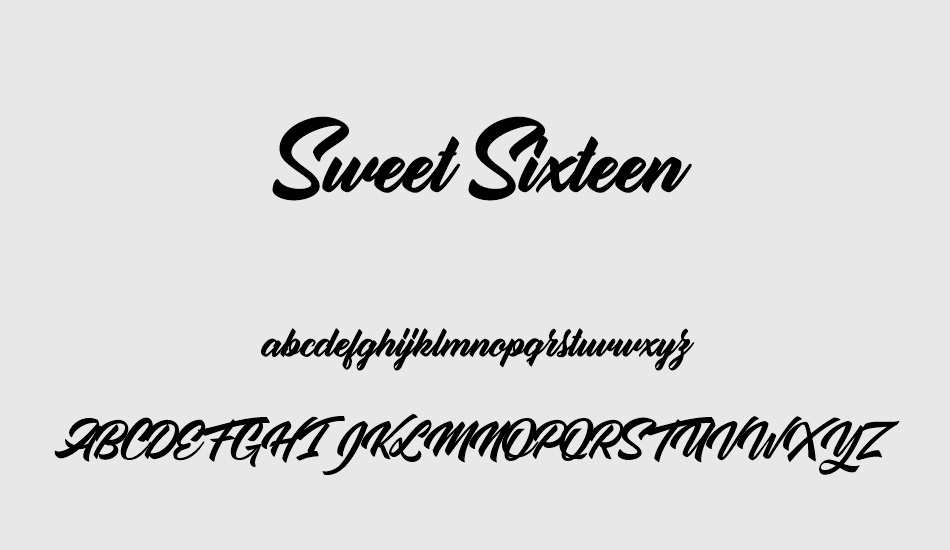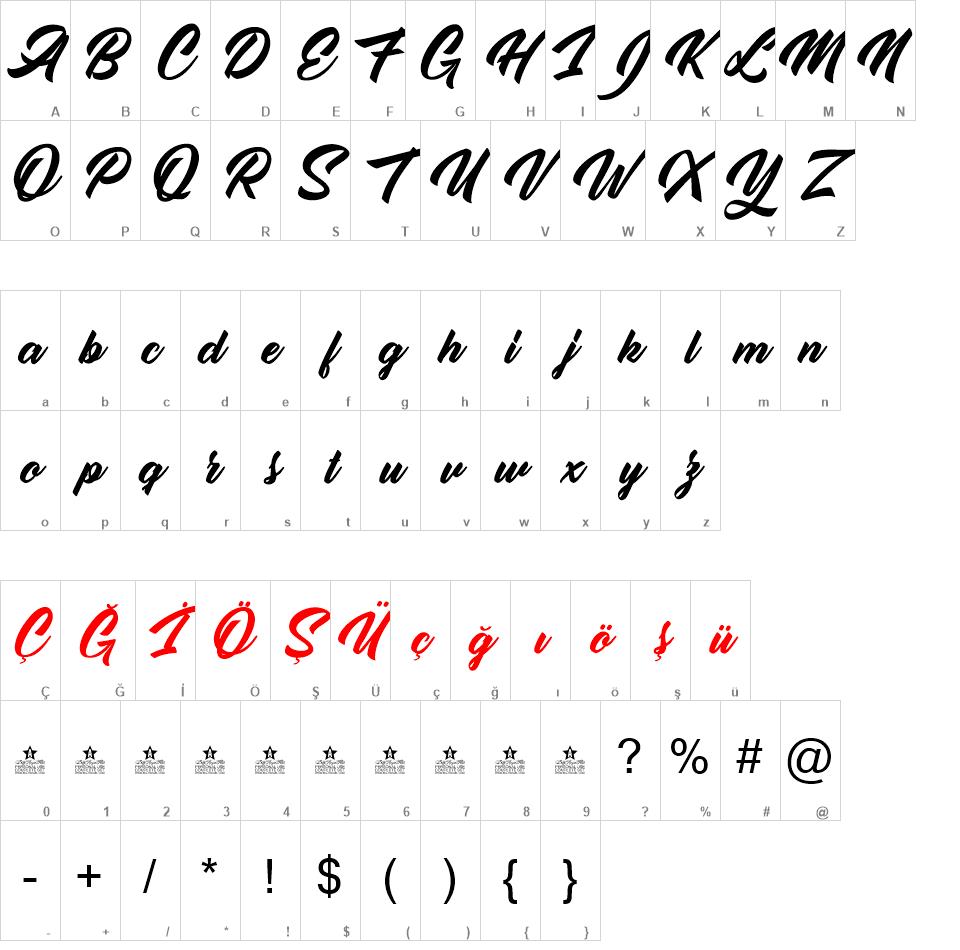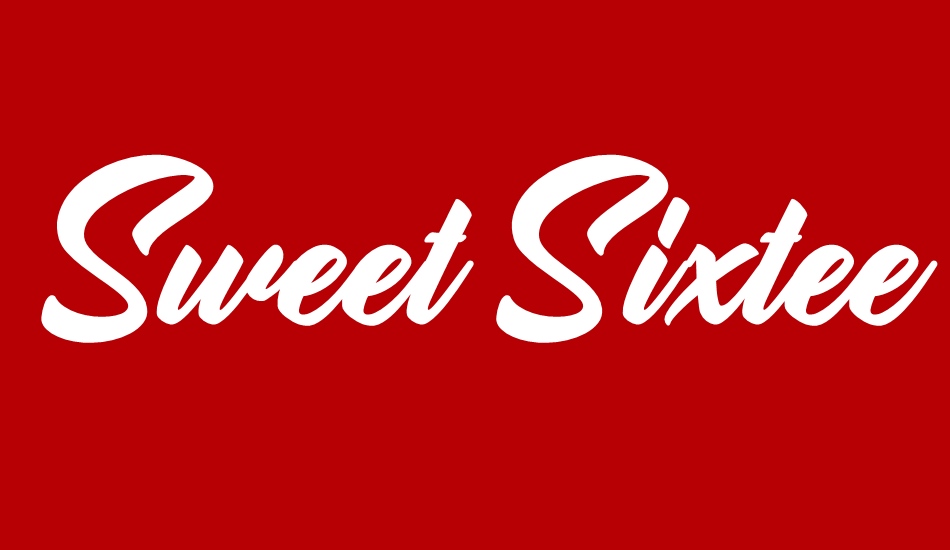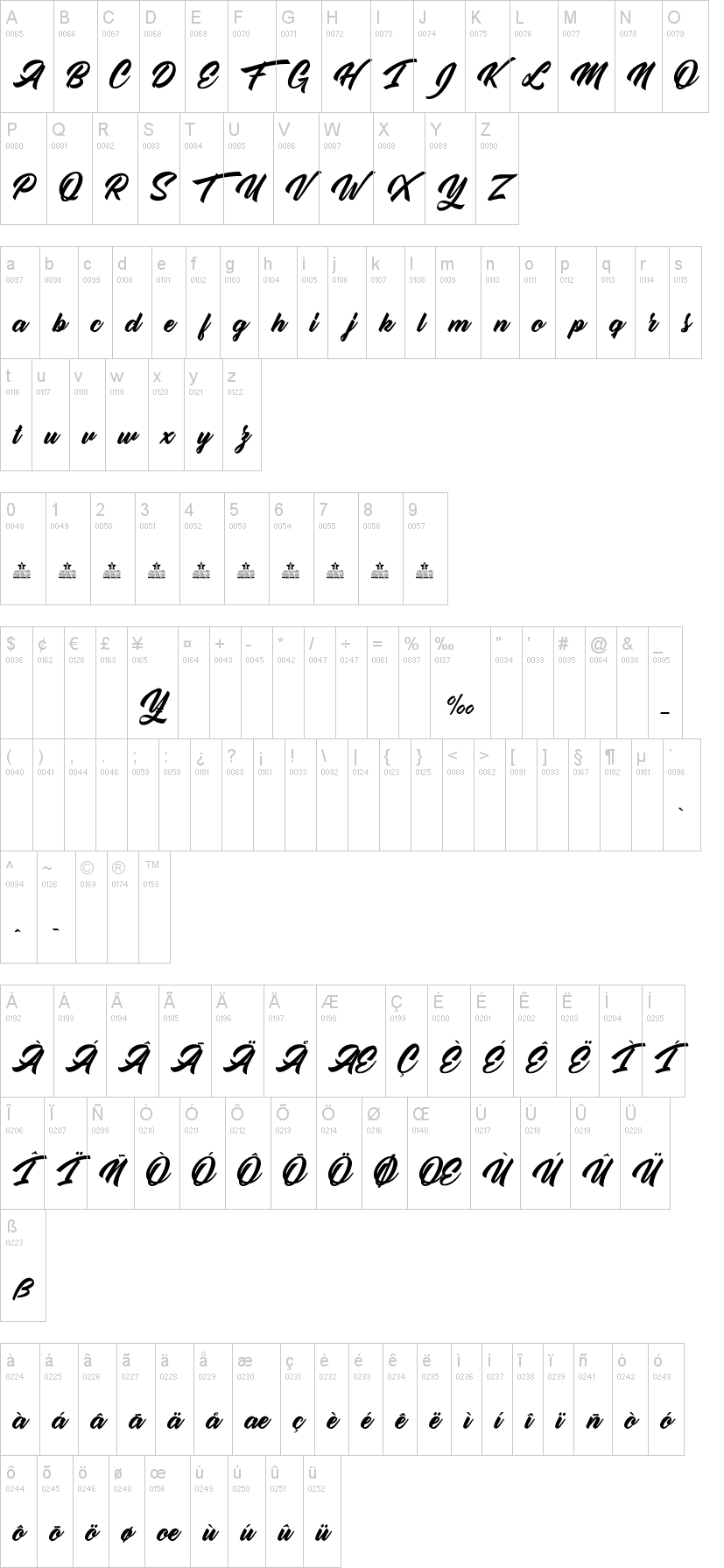
Sweet Sixteen Font
Sweet Sixteen Font - Jul 30, 2021 822 14. Web sweet sixteen is a high quality brush font that is designed by billy argel and is available for free download and personal. Sweet sixteen is a script type font that can be used on any. Mar 11, 2022 487 11. Web sweet sixteen is a free font for personal use created by billy argel. Web sweet 16 fonts. Web stylish calligraphy by misti's fonts. Collection of fonts for sweet sixteen.
Web sweet 16 fonts. Sweet sixteen is a script type font that can be used on any. Web stylish calligraphy by misti's fonts. Web sweet sixteen is a free font for personal use created by billy argel. Web sweet sixteen is a high quality brush font that is designed by billy argel and is available for free download and personal. Mar 11, 2022 487 11. Jul 30, 2021 822 14. Collection of fonts for sweet sixteen.
Web sweet sixteen is a free font for personal use created by billy argel. Web stylish calligraphy by misti's fonts. Sweet sixteen is a script type font that can be used on any. Web sweet sixteen is a high quality brush font that is designed by billy argel and is available for free download and personal. Web sweet 16 fonts. Mar 11, 2022 487 11. Jul 30, 2021 822 14. Collection of fonts for sweet sixteen.
Sweet Sixteen free font
Collection of fonts for sweet sixteen. Web sweet 16 fonts. Web sweet sixteen is a free font for personal use created by billy argel. Mar 11, 2022 487 11. Web stylish calligraphy by misti's fonts.
Web sweet sixteen is a free font for personal use created by billy argel. Sweet sixteen is a script type font that can be used on any. Collection of fonts for sweet sixteen. Jul 30, 2021 822 14. Web sweet 16 fonts.
Web sweet sixteen is a high quality brush font that is designed by billy argel and is available for free download and personal. Web sweet sixteen is a free font for personal use created by billy argel. Web sweet 16 fonts. Sweet sixteen is a script type font that can be used on any. Mar 11, 2022 487 11.
Web sweet sixteen is a free font for personal use created by billy argel. Sweet sixteen is a script type font that can be used on any. Web sweet sixteen is a high quality brush font that is designed by billy argel and is available for free download and personal. Web sweet 16 fonts. Web stylish calligraphy by misti's fonts.
Web sweet 16 fonts. Sweet sixteen is a script type font that can be used on any. Web stylish calligraphy by misti's fonts. Collection of fonts for sweet sixteen. Web sweet sixteen is a high quality brush font that is designed by billy argel and is available for free download and personal.
Mar 11, 2022 487 11. Collection of fonts for sweet sixteen. Web stylish calligraphy by misti's fonts. Sweet sixteen is a script type font that can be used on any. Jul 30, 2021 822 14.
SWEET SIXTEEN Billy Argel Fonts
Collection of fonts for sweet sixteen. Mar 11, 2022 487 11. Web stylish calligraphy by misti's fonts. Sweet sixteen is a script type font that can be used on any. Web sweet sixteen is a high quality brush font that is designed by billy argel and is available for free download and personal.
Web stylish calligraphy by misti's fonts. Collection of fonts for sweet sixteen. Web sweet sixteen is a free font for personal use created by billy argel. Sweet sixteen is a script type font that can be used on any. Jul 30, 2021 822 14.
Sweet Sixteen Font Download
Collection of fonts for sweet sixteen. Web sweet 16 fonts. Mar 11, 2022 487 11. Web stylish calligraphy by misti's fonts. Web sweet sixteen is a high quality brush font that is designed by billy argel and is available for free download and personal.
Sweet Sixteen Font
Collection of fonts for sweet sixteen. Web sweet sixteen is a free font for personal use created by billy argel. Mar 11, 2022 487 11. Jul 30, 2021 822 14. Web sweet sixteen is a high quality brush font that is designed by billy argel and is available for free download and personal.
Web Sweet 16 Fonts.
Mar 11, 2022 487 11. Sweet sixteen is a script type font that can be used on any. Web stylish calligraphy by misti's fonts. Web sweet sixteen is a high quality brush font that is designed by billy argel and is available for free download and personal.
Collection of fonts for sweet sixteen. Web sweet sixteen is a free font for personal use created by billy argel.